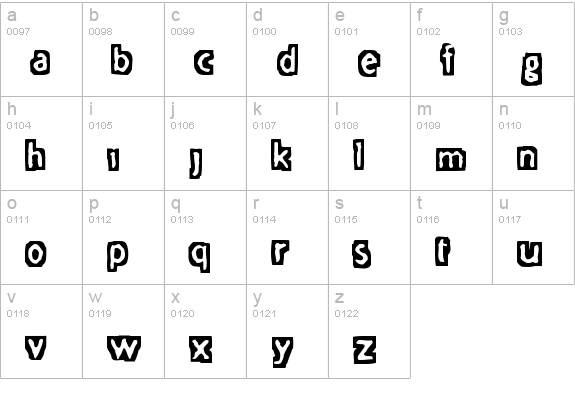
FiveFingerDiscount Font Details
FiveFingerDiscount font is a playful and whimsical typeface that adds a touch of fun and creativity to any design project. With its unique character shapes and quirky style, this font is perfect for adding a lighthearted feel to invitations, posters, and more. The best part is that FiveFingerDiscount font is completely free to download at FontsMarket.com, allowing you to unleash your creativity without any cost. Embrace the playful charm of FiveFingerDiscount font in your next project and make a statement with this freely available typeface.